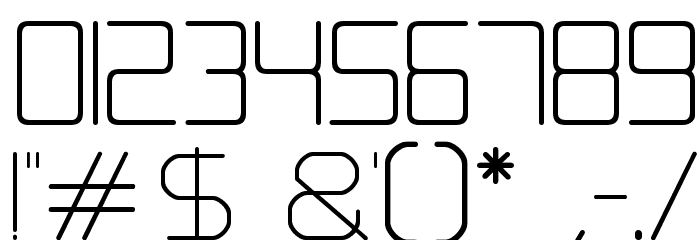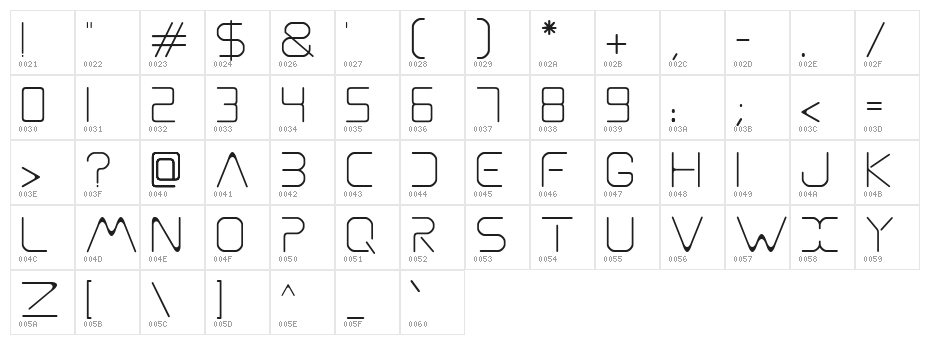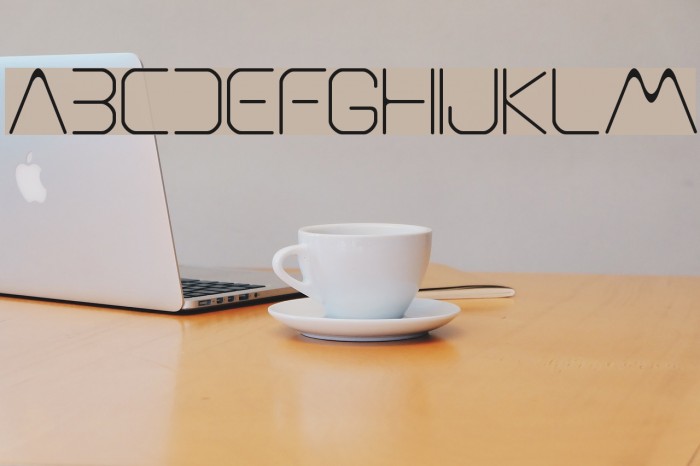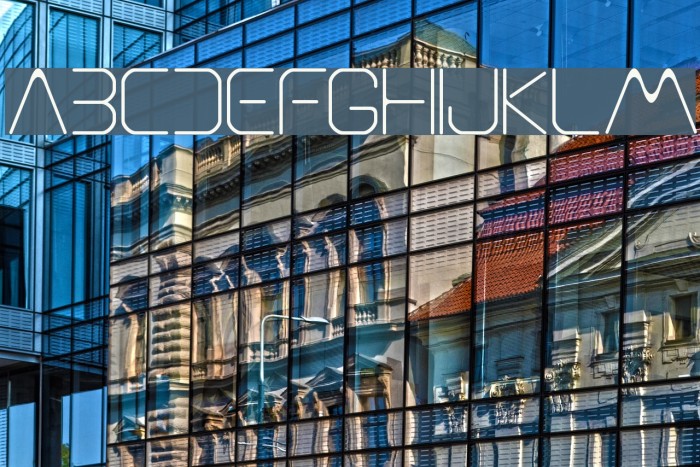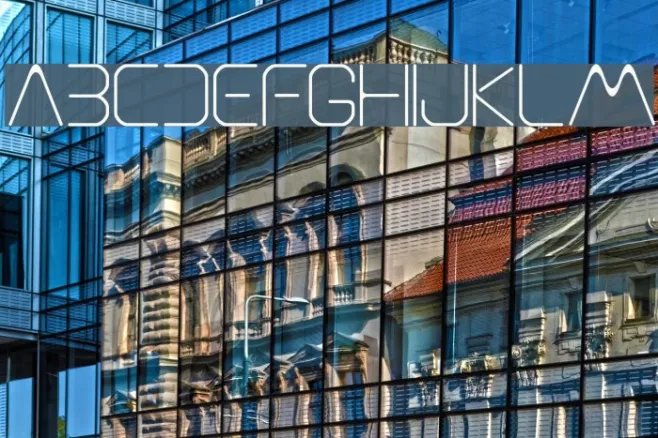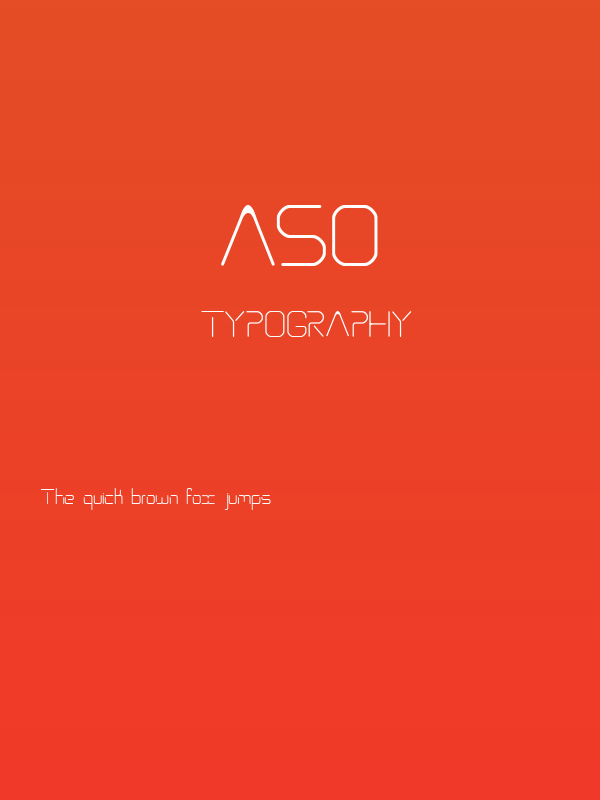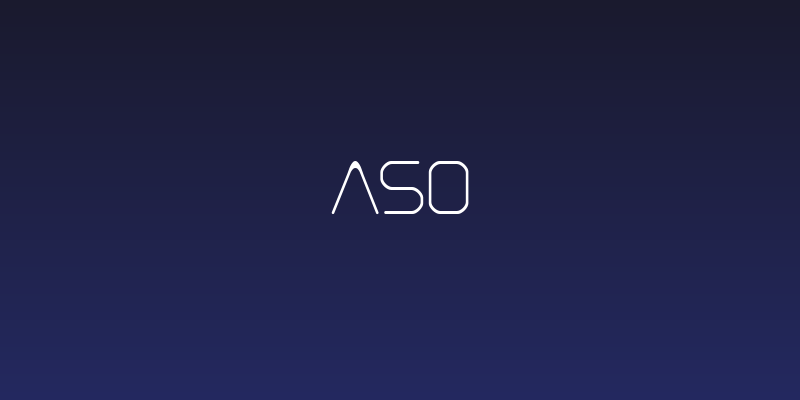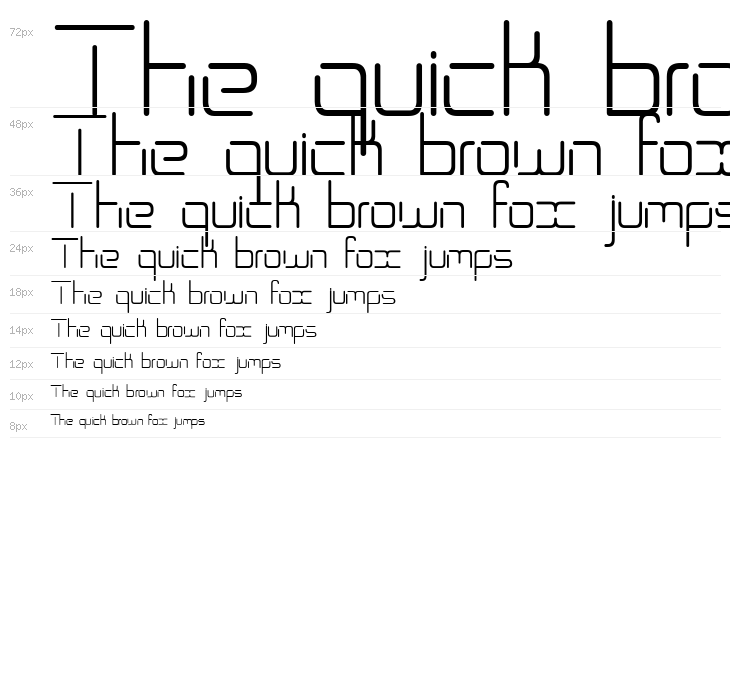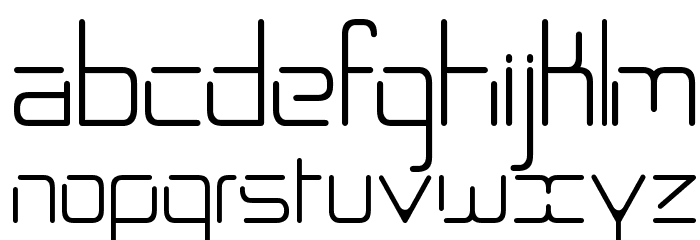
ASO Font
ASO Description
This font features a modern, geometric design with a clean and futuristic appearance. The characters are constructed with consistent line thickness, creating a uniform and sleek look. The uppercase letters have a distinct angularity, while the lowercase letters maintain a rounded, tubular form. The numerals and special characters follow the same design principles, ensuring a cohesive visual style. The overall aesthetic is minimalistic, making it suitable for contemporary design projects.
| Use Case | Headlines, Logos, Digital Interfaces |
| Proposed Projects | Ideal for technology branding, modern advertising, digital interfaces, and futuristic-themed projects. |